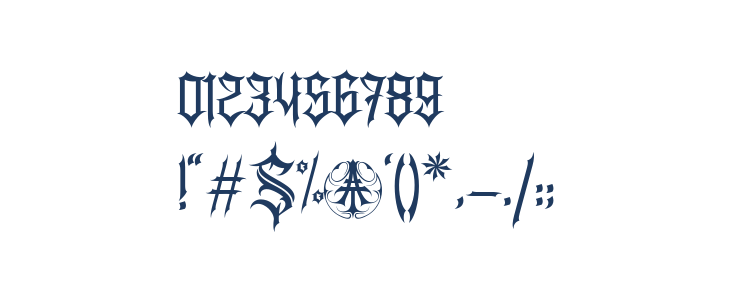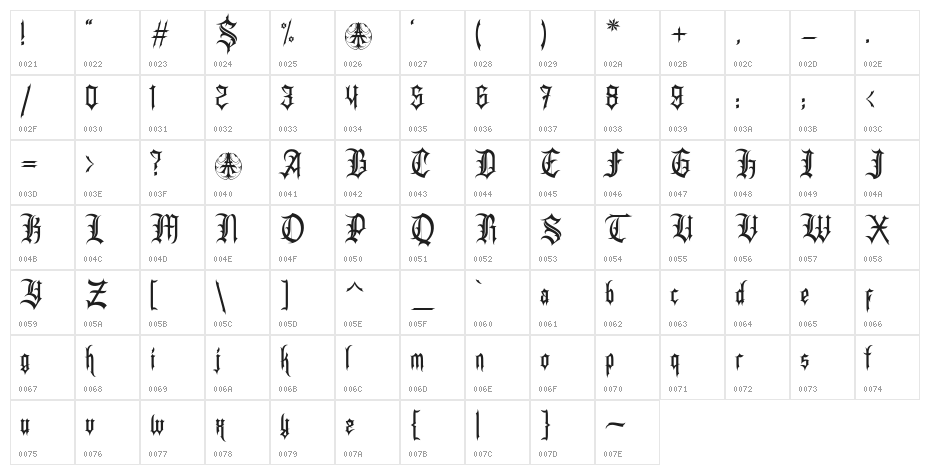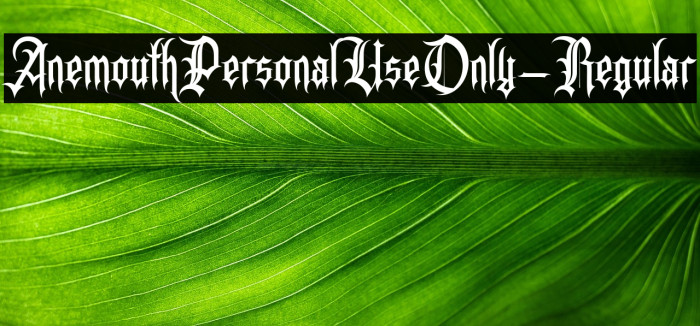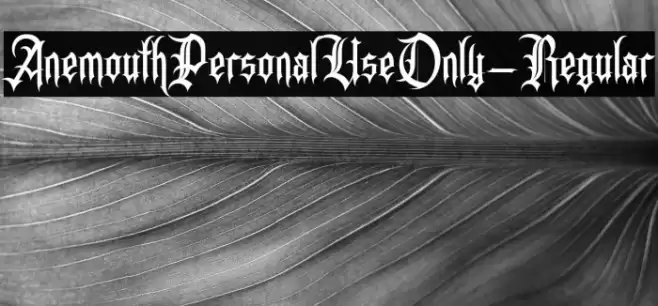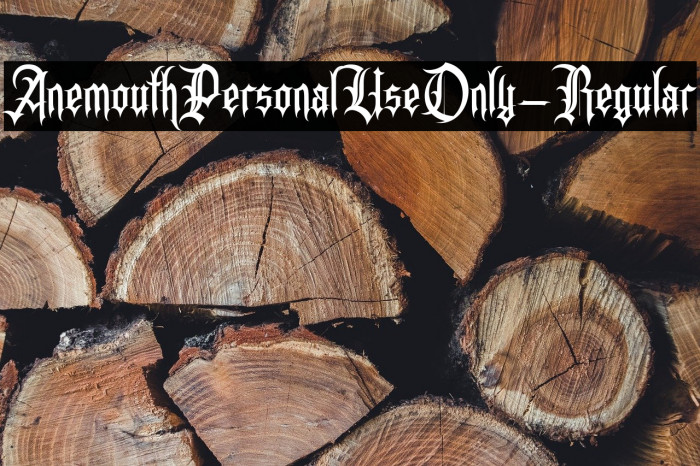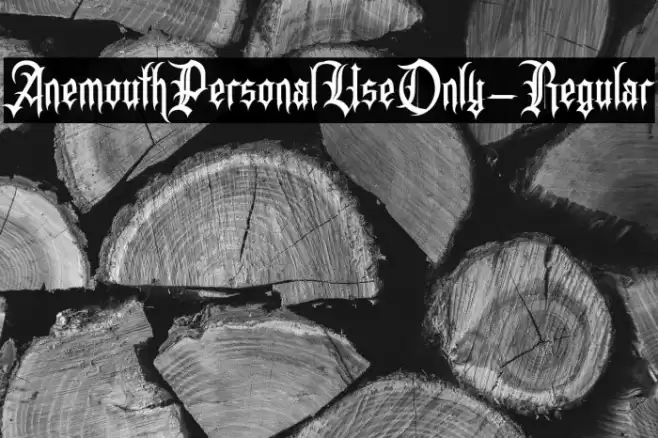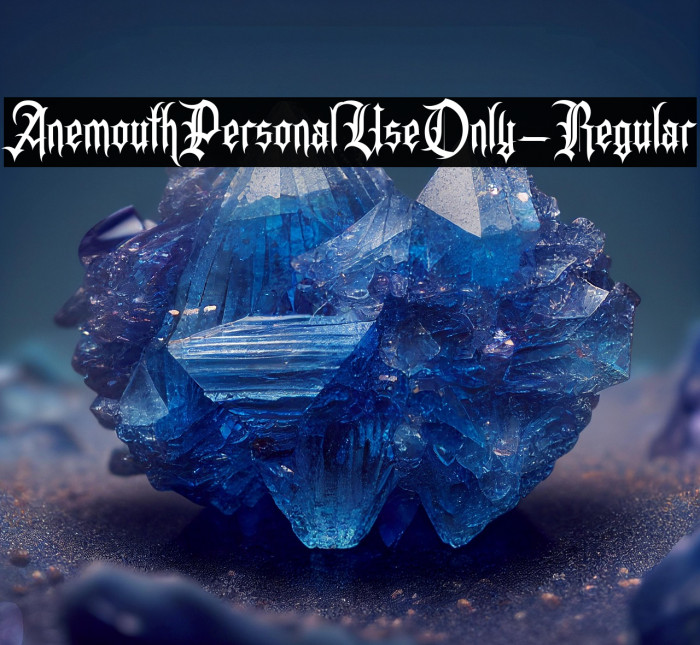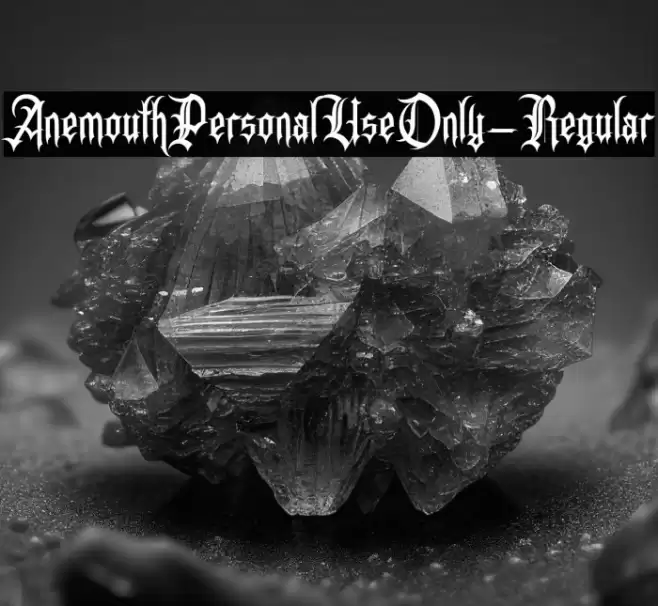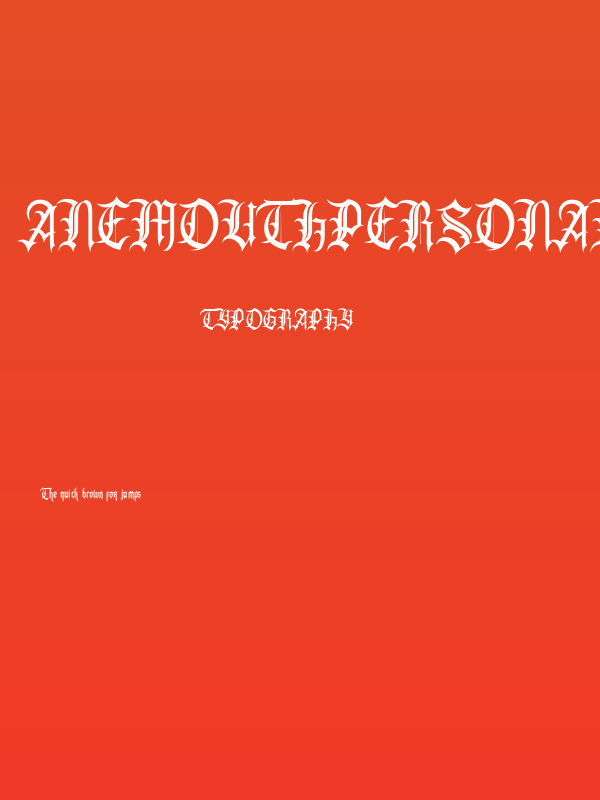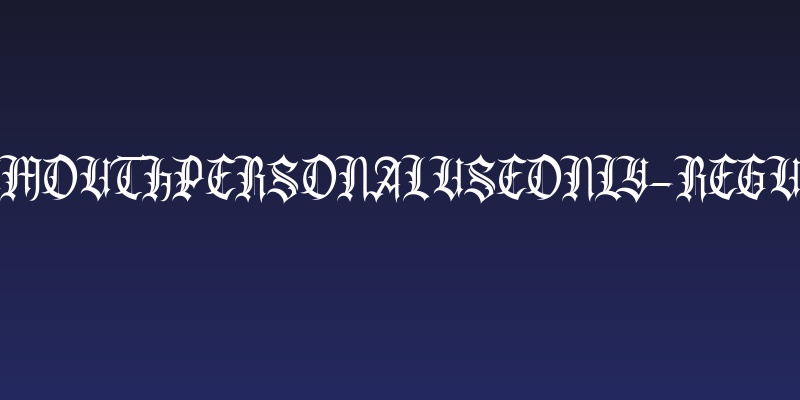
AnemouthPersonalUseOnly-Regular Font
AnemouthPersonalUseOnly-Regular Description
This font features a striking and intricate design reminiscent of traditional Blackletter styles. The characters are ornate, with sharp, angular lines and elaborate flourishes that give it a gothic and medieval appearance. The uppercase letters are particularly elaborate, with pointed serifs and decorative elements that create a sense of drama and elegance. The lowercase letters maintain the same stylistic elements but are slightly more subdued, offering a balance to the overall design. Numbers and special characters are consistent with the font's theme, featuring similar ornate details. This font is ideal for projects that require a historical or dramatic flair, such as event posters, book covers, or branding for luxury products.
| Overall Style | Gothic, Medieval, Decorative |
| Use Case | Headlines, Logos, Decorative text |
| Proposed Projects | Event posters, book covers, luxury branding, historical-themed designs. |